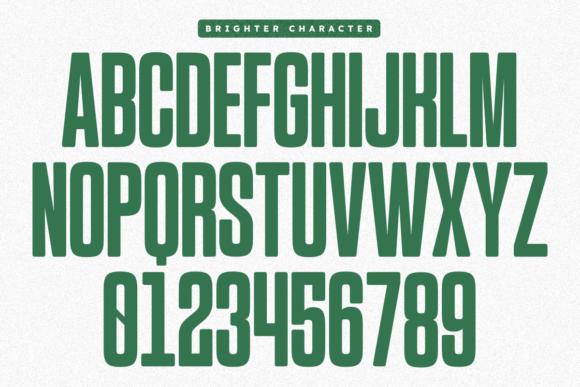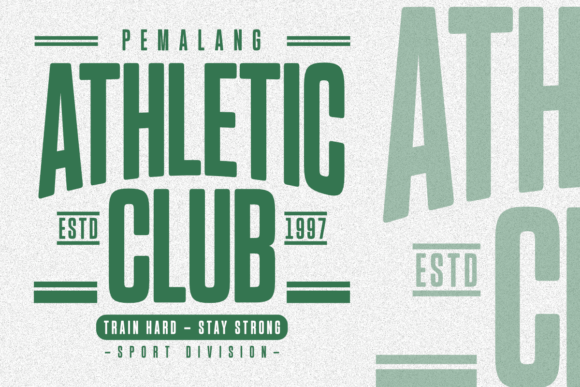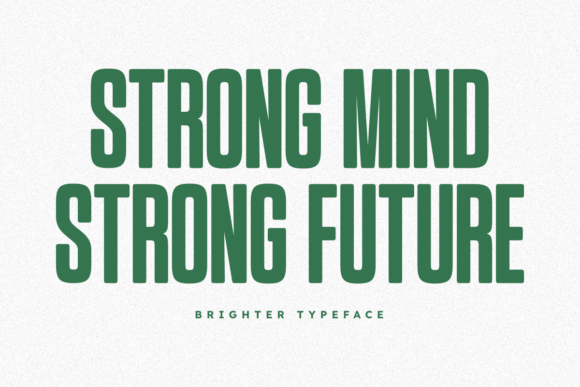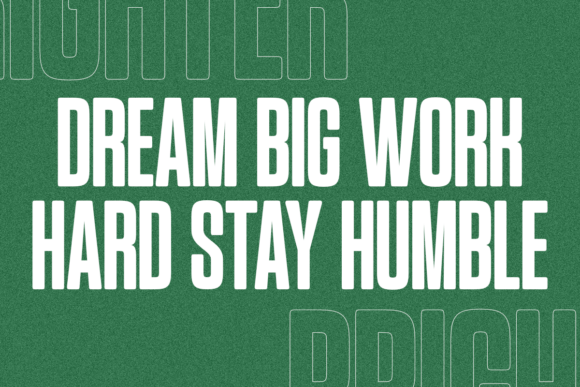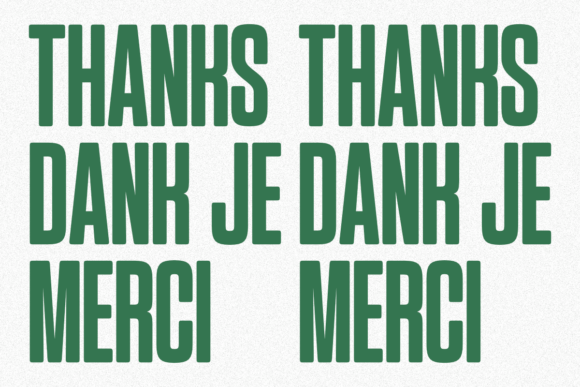
Discover the Timeless Charm of Brighter Font: A Retro Sans Serif for Modern Creatives
I’ll never forget the design struggle I faced while working on a vintage-inspired t-shirt project for a client. I had the concept, the color palette, and the design elements, but something was missing – the perfect font. I scoured the internet, tried countless typefaces, but none seemed to capture the essence of retro charm I was looking for. That was until I stumbled upon the Brighter font. It was love at first sight! With its bold, versatile, and nostalgic aesthetic, Brighter effortlessly elevated my design and exceeded my client’s expectations.
An Honest Review of Brighter Font
What I Love About Brighter Font ✨
- ✅ Retro charm with a modern twist: Brighter’s unique blend of vintage and contemporary elements makes it perfect for designs that require a touch of nostalgia.
- ✅ Excellent readability: The font’s tall and solid structure ensures that your message is conveyed clearly, even at smaller sizes.
- ✅ Versatile and bold: Brighter’s confident presence makes it ideal for headlines, posters, and professional merchandise.
- ✅ Smooth, rounded edges: The font’s subtle rounded edges give it a warm, approachable feel that’s reminiscent of classic 70s and 80s typography.
While Brighter font is an excellent choice for many design projects, there are a few minor limitations to consider:
- 🤔 Limited use in body text: Due to its bold nature, Brighter font may not be the best choice for lengthy body text. It’s better suited for headlines, titles, and short paragraphs.
- 🤔 Kerning adjustments: As with any font, some kerning adjustments may be necessary to achieve optimal spacing and readability.
If you like Brighter font, you might also consider the following alternatives:
- RetroSans: A clean and modern sans serif font with a retro twist, perfect for designs that require a more subtle nostalgic feel.
- VintageGrotesque: A bold and distressed font that captures the essence of vintage typography, ideal for designs that require a more rugged look.
- BoldMonday: A modern sans serif font with a bold and confident presence, suitable for designs that require a more contemporary aesthetic.
- Montreal: A geometric sans serif font with a retro flair, perfect for designs that require a clean and minimalist look.
The Story Behind Brighter Font
Brighter font was designed with the goal of capturing the timeless charm of retro typography while maintaining a clean, modern edge. Inspired by the iconic fonts of the 1970s and 1980s, the designer aimed to create a typeface that would be both nostalgic and versatile. Through a combination of traditional techniques and modern technology, Brighter font was born – a bold, confident, and stylish typeface that’s perfect for a wide range of design projects.
| Font Name | Brighter Font |
| Author | Almairatype Studio |
| What is Brighter font best suited for? | Brighter font is ideal for designs that require a bold, retro aesthetic, such as t-shirt designs, posters, and professional merchandise. |
| Can I use Brighter font for body text? | While Brighter font can be used for short paragraphs, it’s not recommended for lengthy body text due to its bold nature. |
| Is Brighter font suitable for digital use? | Yes, Brighter font is optimized for both print and digital use, making it perfect for a wide range of design projects. |